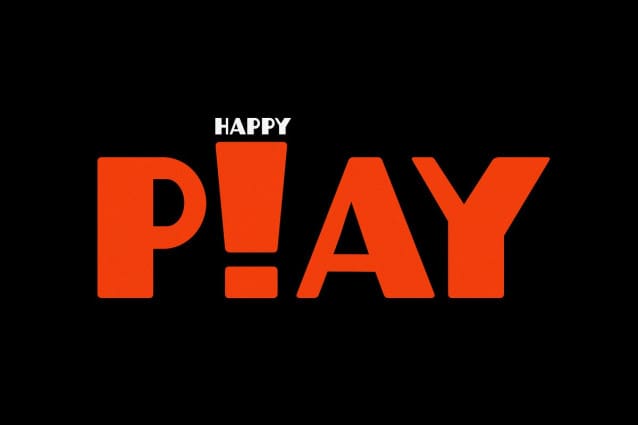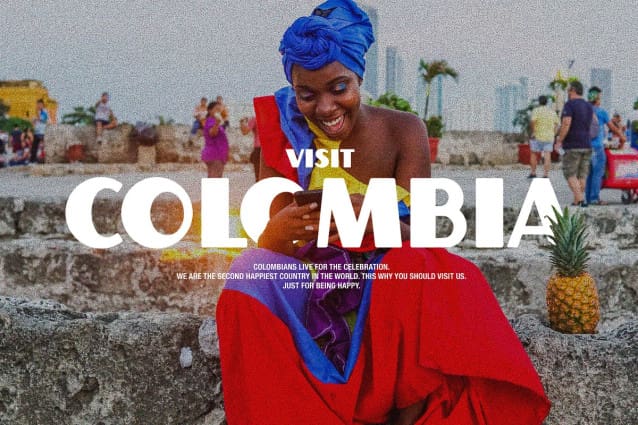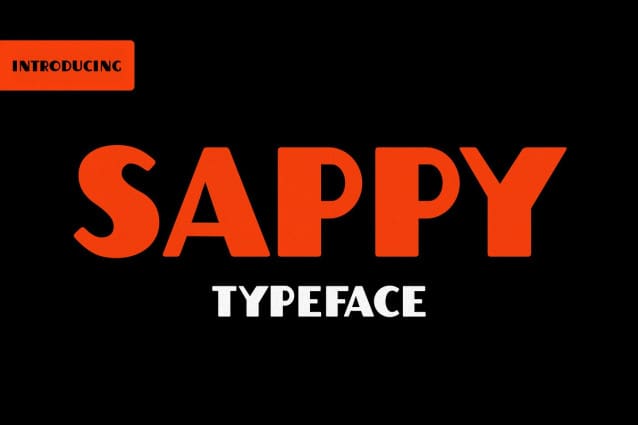
Sappy Display Font
Sappy Display Font is a thick and juicy display typeface. It has tons of character and charm. This extended width font will work wonders for all sorts of design projects like posters, headlines, magazines, stationary, apparel, branding, menus and more.